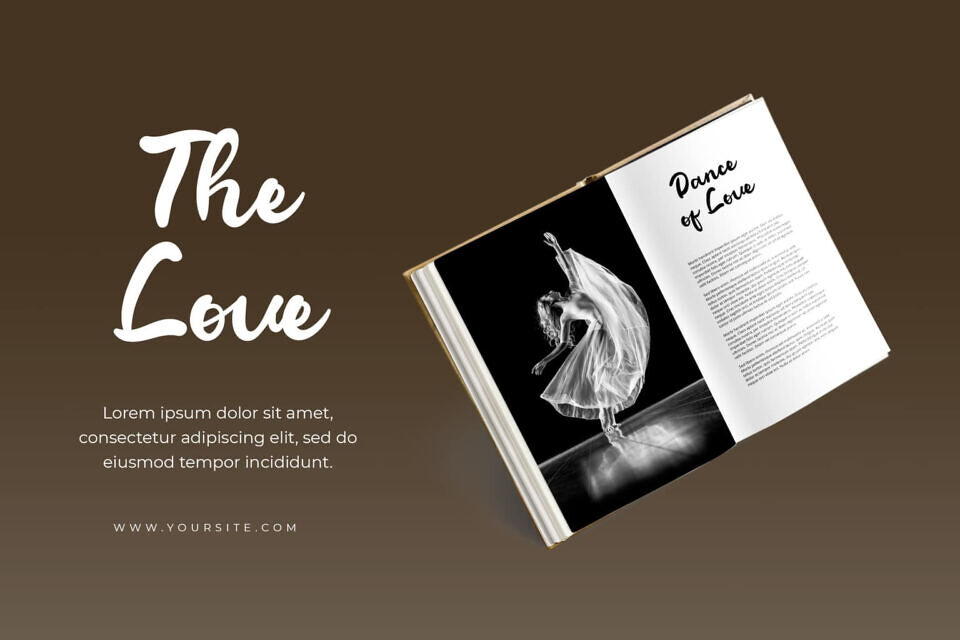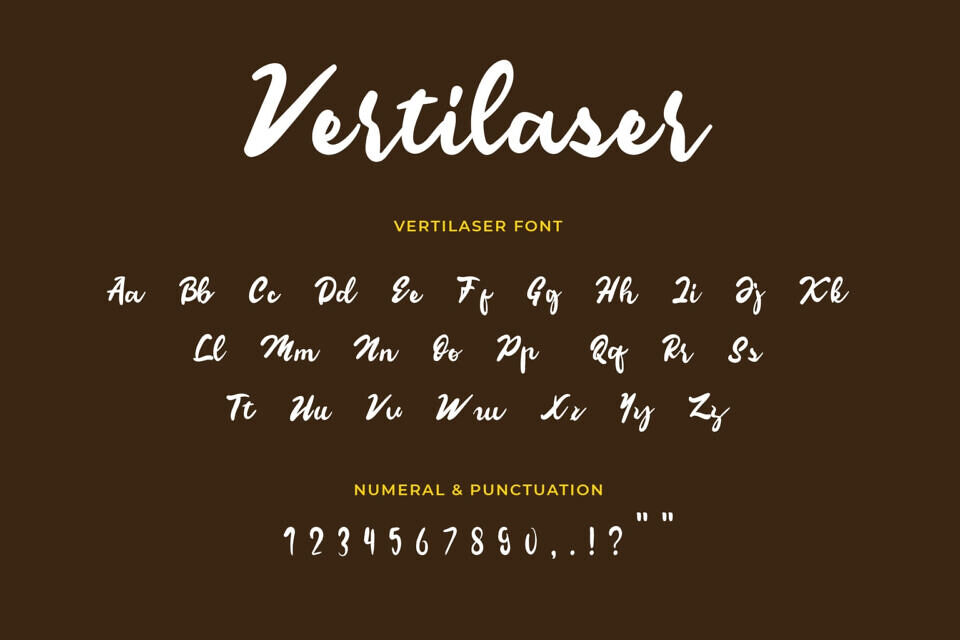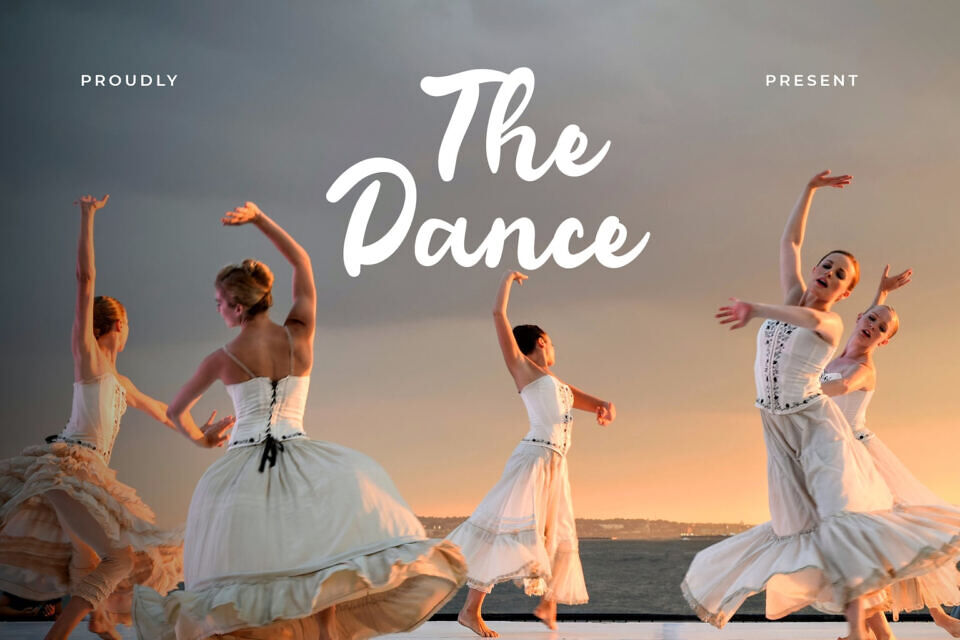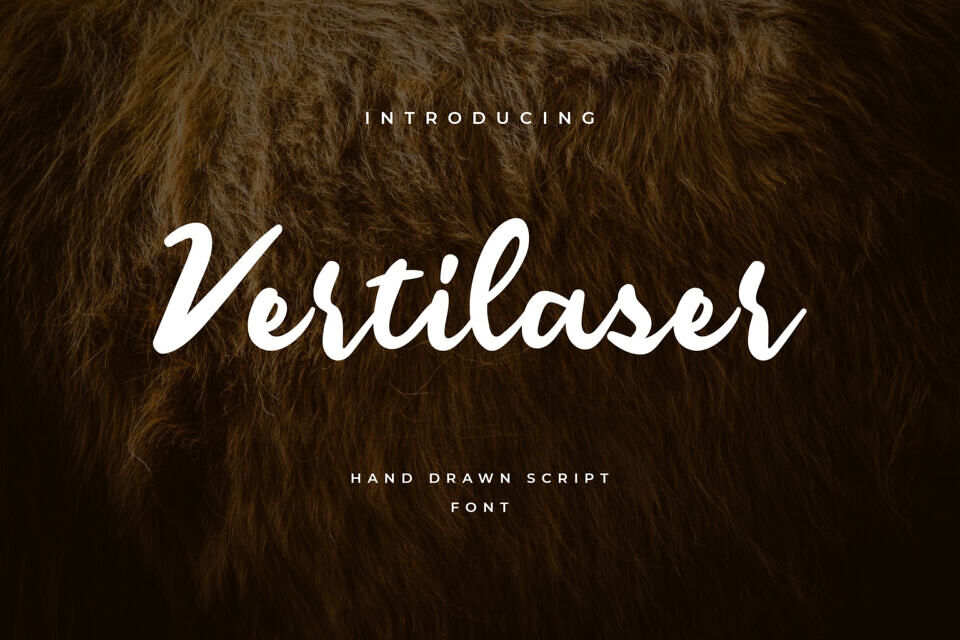
Vertilaser Font
Vertilaser is a unique, handwritten font with a distinct artistic style. Its natural, script-based design makes it versatile for various creative projects and products. It’s suitable for use on catalog covers, stationery, marketing materials, magazines, and more, including logos, branding, posters, and packaging designs.